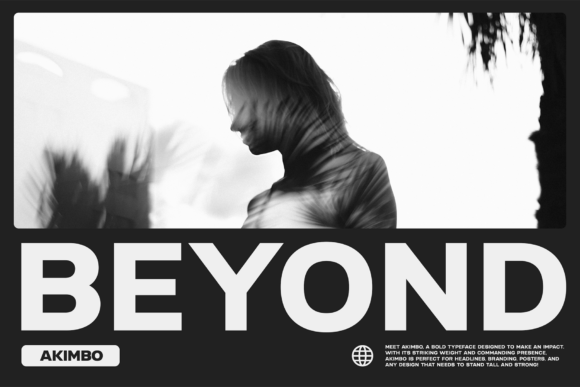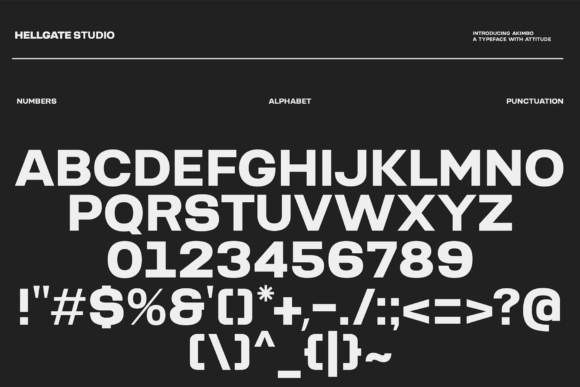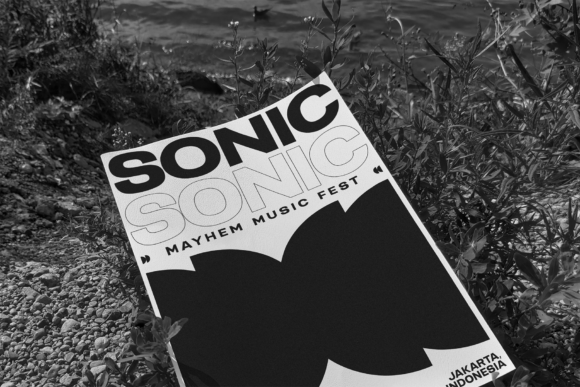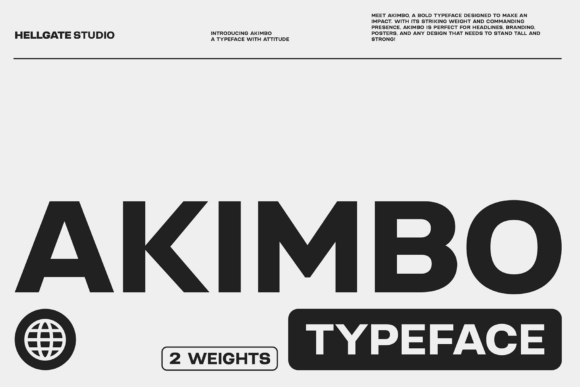
Akimbo Font: A Trailblazing Typeface for Modern Design
In the realm of typography, few fonts have made a lasting impact like the Akimbo Font. This contemporary typeface is a game-changer, offering two distinct variations that exude a sense of modernity and sophistication. With its bold and sturdy personality, Akimbo Font is sure to impress even the most discerning designers and crafters.
Audacious and Sturdy Design
The Akimbo Font boasts a sharp, top-tier design that effortlessly marries any color scheme. Its audacious and sturdy personality makes it perfect for designers looking to make a statement. Whether you’re working on a branding project, a website, or a craft, Akimbo Font is sure to turn heads. Its unique design elements are carefully crafted to provide a distinctive look that sets it apart from other fonts.
User-Friendly Customization Options
One of the standout features of Akimbo Font is its user-friendly customization options. With this remarkable font, you can change text and color with smooth finesse, resulting in a uniquely identifiable Akimbo aesthetic. This level of customization is a dream come true for designers and crafters who want to add a personal touch to their work.
Two Distinct Variations
Akimbo Typeface offers two distinct variations, each with its own unique character. This allows designers and crafters to choose the variation that best suits their project, whether it’s a bold and edgy look or a more subtle and refined aesthetic. The two variations provide a level of versatility that is hard to find in other fonts.
Perfect for Modern Design
Akimbo Font is perfect for modern design projects that require a bold and contemporary look. Its clean lines, sharp edges, and sturdy personality make it an excellent choice for a wide range of applications, from branding and advertising to web design and crafting. Whether you’re working on a digital project or a physical one, Akimbo Font is sure to make a lasting impression.
Tips for Using Akimbo Font
To get the most out of Akimbo Font, here are a few tips to keep in mind:
- Experiment with different color schemes to find the perfect combination that complements your design.
- Use Akimbo Font in combination with other fonts to create a unique and visually appealing typography.
- Take advantage of the user-friendly customization options to add a personal touch to your design.
- Use Akimbo Font consistently throughout your design to create a cohesive and recognizable brand identity.
In conclusion, Akimbo Font is a trailblazing typeface that is sure to make a lasting impact on the world of design. With its audacious and sturdy personality, sharp design, and user-friendly customization options, it’s the perfect choice for designers and crafters looking to create a unique and modern aesthetic. Whether you’re working on a branding project, a website, or a craft, Akimbo Font is sure to impress.